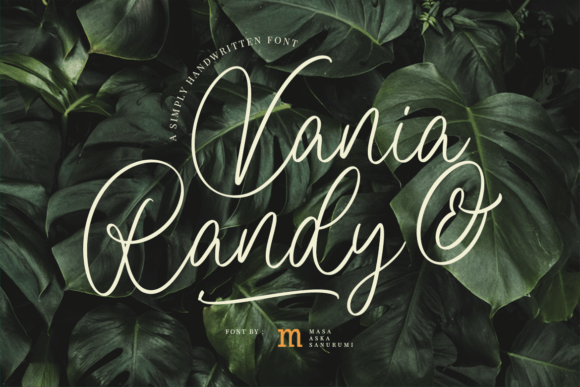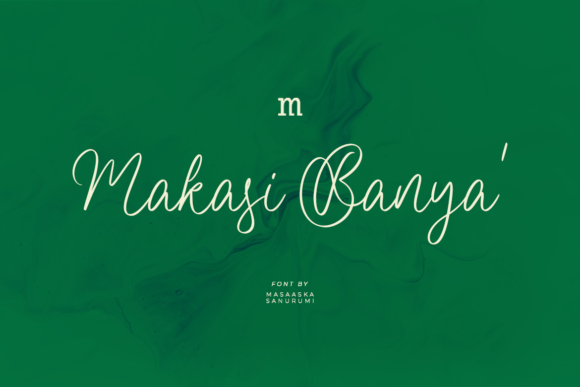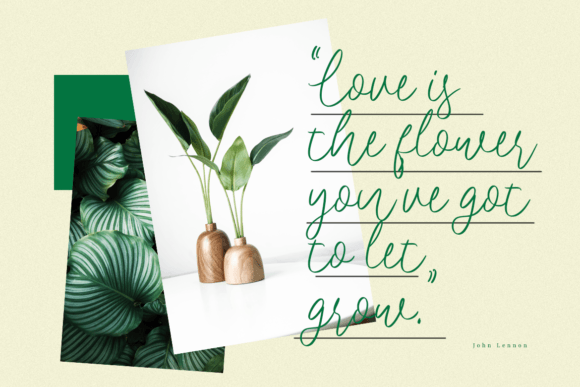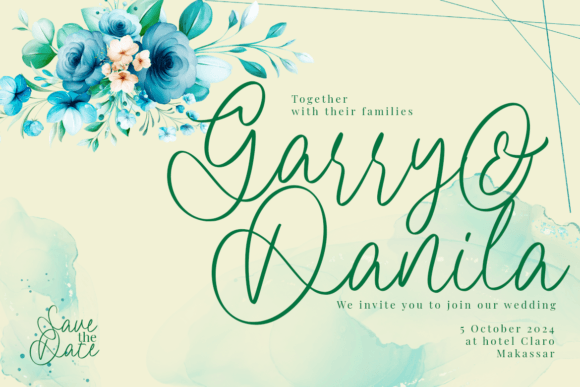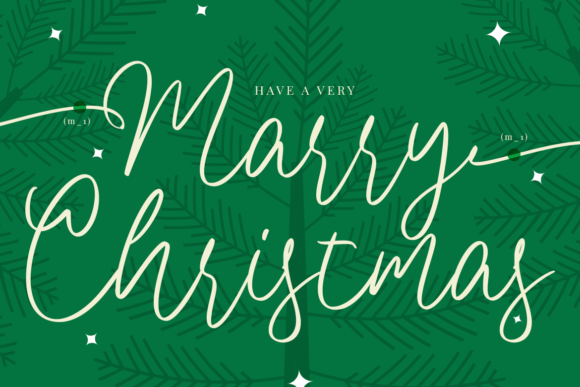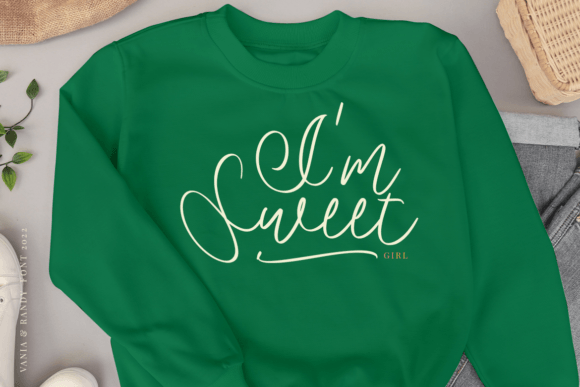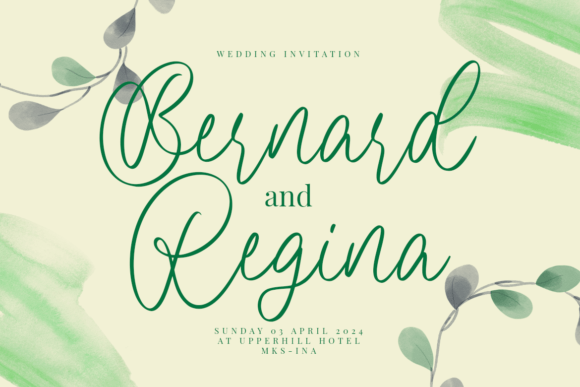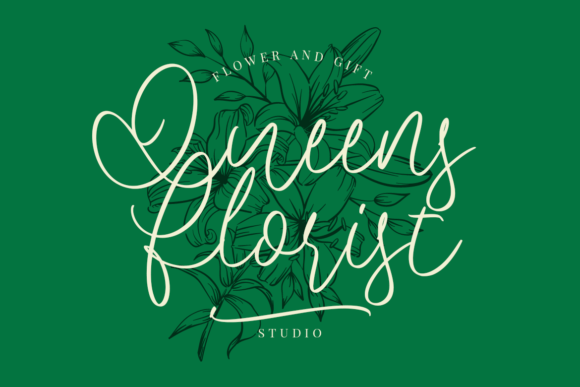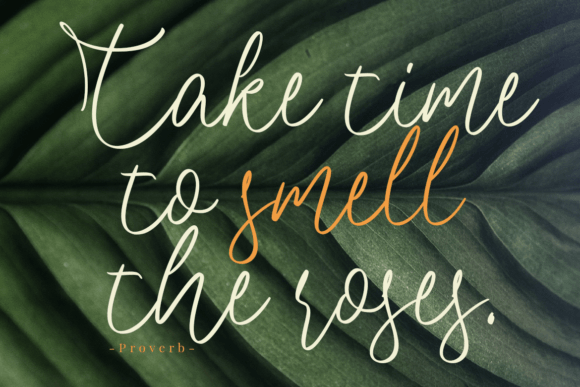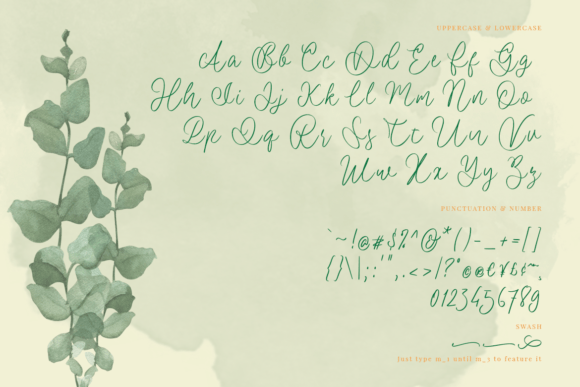
Vania and Randy Font
About Vania and Randy Font
**Vania and Randy**: *Where Beauty Meets Modern Simplicity*
Vania and Randy are not just names; they represent a beautiful and modern script font that embodies simplicity and style. Whether you’re seeking fonts for your Instagram posts or elegant calligraphy scripts for DIY projects, this font is your ticket to transforming any creative idea into a work of art.
This font is a stunning blend of beauty and modern simplicity. Its graceful and contemporary script characters radiate elegance while maintaining a sense of straightforwardness. Vania and Randy have the innate ability to turn even the simplest of concepts into true pieces of art. Their minimalist charm enhances the visual appeal of your projects, making them stand out with a touch of sophistication.
What sets Vania and Randy apart is their versatility. Whether you’re designing social media posts, crafting invitations, or embarking on DIY endeavors, these fonts effortlessly adapt to your creative needs. They are the perfect companions for elevating your design game, adding an element of class and style to any project.
Vania and Randy’s simplicity and style make them highly sought-after in the design world. Their clean lines and contemporary aesthetics make them suitable for various contexts, from digital platforms like Instagram to physical applications like invitations and cards.
One of their most remarkable features is their ability to turn words into visual masterpieces. These fonts have a transformative power that brings out the beauty in simplicity. No matter your creative vision, Vania and Randy will help you achieve it with flair and elegance.
In summary, Vania and Randy are not just fonts; they are your creative partners in turning everyday ideas into works of art. Their combination of beauty and modern simplicity makes them ideal for a wide range of applications, from social media to DIY projects. Embrace the elegance and versatility of Vania and Randy, and let your creativity shine through with a touch of timeless style and sophistication.